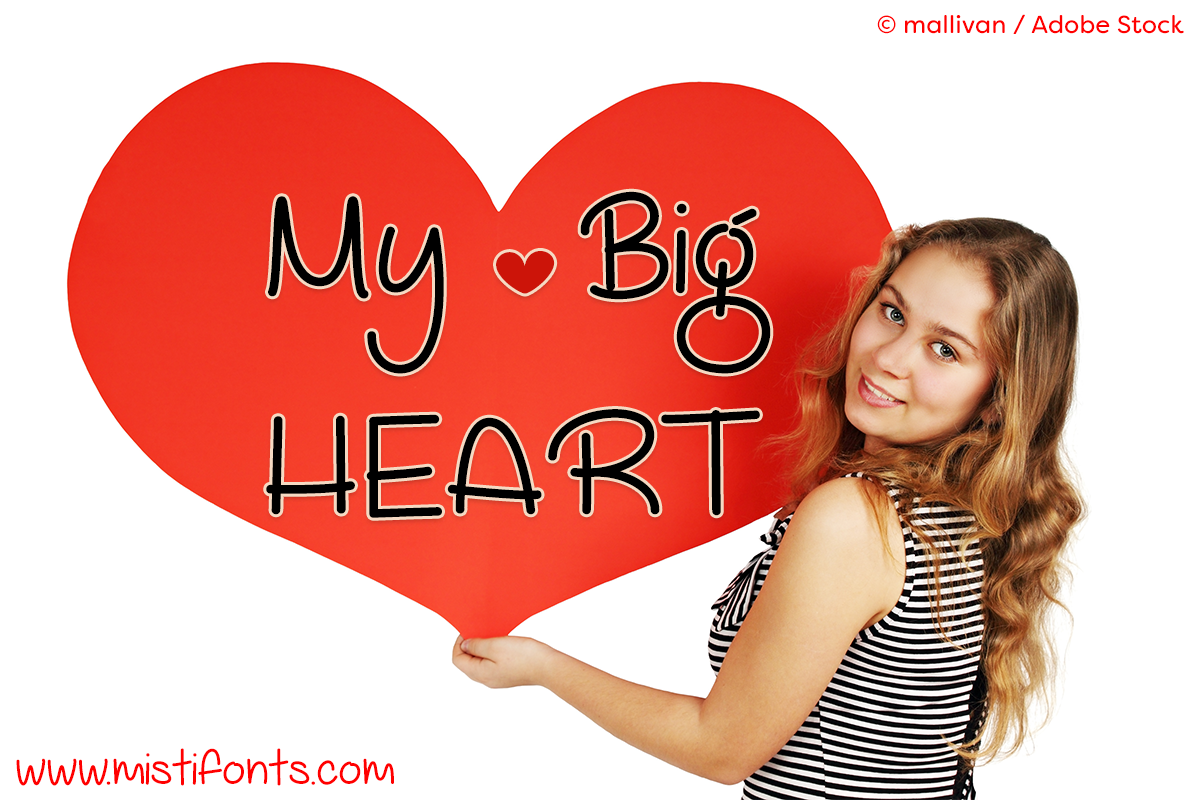
My Big Heart is an upbeat handwritten font that is perfect for your design and craft projects!
Special Symbols
Type * for the solid heart
Type | for the open heart